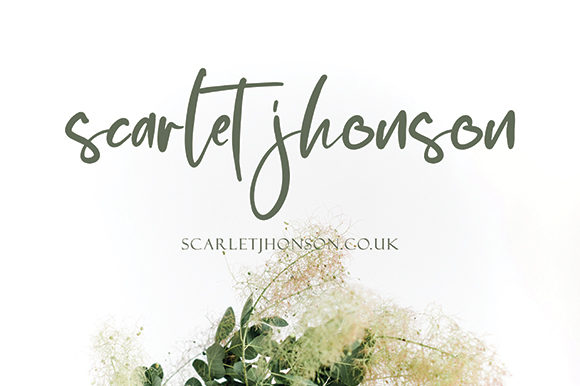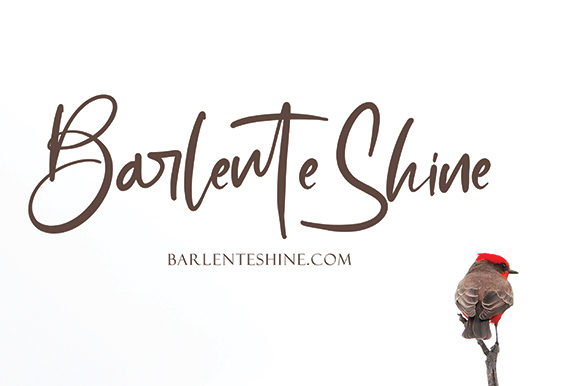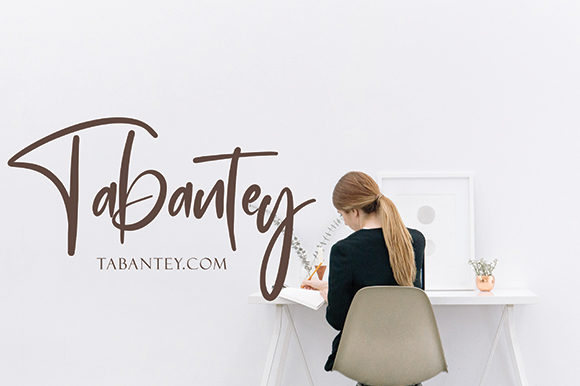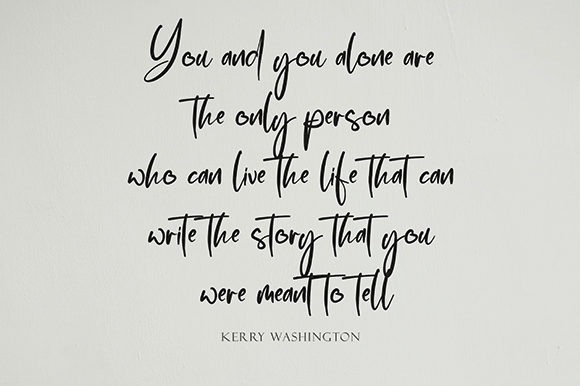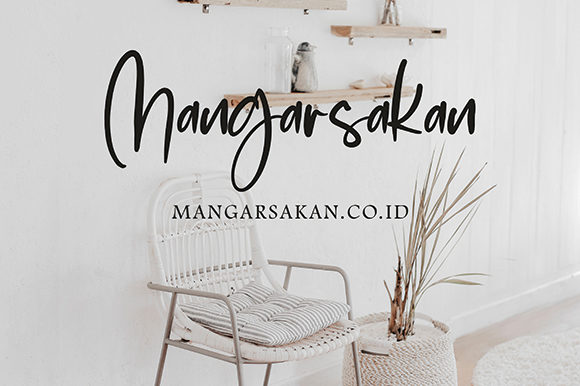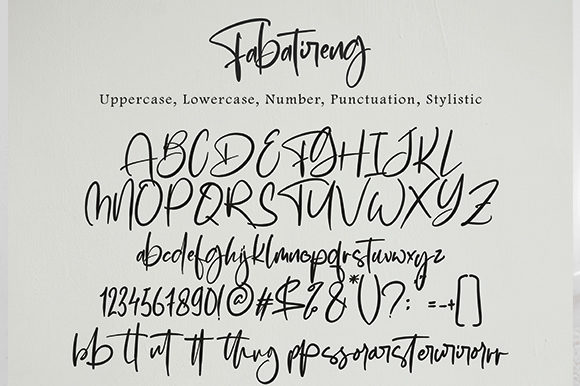
Fabatireng Font: Elevate Your Designs with a Modern and Clean Handwritten Style
In the world of typography, a font can make or break a design. For designers and crafters looking for a modern and clean handwritten font to elevate their projects, Fabatireng is an excellent choice. This versatile font is designed to bring a fresh and neat vibe to your designs, making it perfect for a wide range of applications.
What is Fabatireng Font?
Fabatireng is a modern and clean handwritten font that is perfect for designers and crafters seeking a stylish and elegant typographic solution. Its clean lines and neat appearance make it an ideal choice for projects that require a touch of sophistication and refinement.
Key Features of Fabatireng Font
- Modern and Clean Design: Fabatireng boasts a contemporary and clean design that will add a touch of elegance to your projects.
- Versatility: This font is highly versatile and can be used for a wide range of applications, from branding and advertising to packaging and digital media.
- PUA Encoded: Fabatireng is PUA (Private Use Area) encoded, which means you can easily access all the glyphs and swashes, giving you endless possibilities for creative expression.
- Endless Variations: With Fabatireng, you can experiment with various font styles, sizes, and colors to create unique and eye-catching designs.
Benefits of Using Fabatireng Font
So, why choose Fabatireng font for your designs? Here are just a few benefits:
- Stand Out from the Crowd: With Fabatireng, you can create designs that are truly unique and attention-grabbing, setting you apart from the competition.
- Easy to Read: The clean and neat design of Fabatireng makes it easy to read, even at small font sizes.
- Time-Saving: The PUA encoding of Fabatireng saves you time and effort, as you can easily access all the glyphs and swashes without having to search for alternative characters.
How to Use Fabatireng Font in Your Designs
Using Fabatireng font in your designs is easy and straightforward. Here are some tips to get you started:
- Pair it with Other Fonts: Experiment with pairing Fabatireng with other fonts to create visually appealing and harmonious designs.
- Play with Font Sizes and Colors: Don’t be afraid to experiment with different font sizes and colors to add depth and interest to your designs.
- Use it for Headings and Body Text: Fabatireng is suitable for both headings and body text, making it a versatile choice for a wide range of design applications.
In conclusion, Fabatireng font is an excellent choice for designers and crafters looking for a modern and clean handwritten font to elevate their designs. With its versatility, neat vibe, and PUA encoding, Fabatireng offers endless possibilities for creative expression. Whether you’re working on a branding project, creating social media graphics, or designing packaging, Fabatireng is sure to brighten up your designs and help you stand out from the crowd.